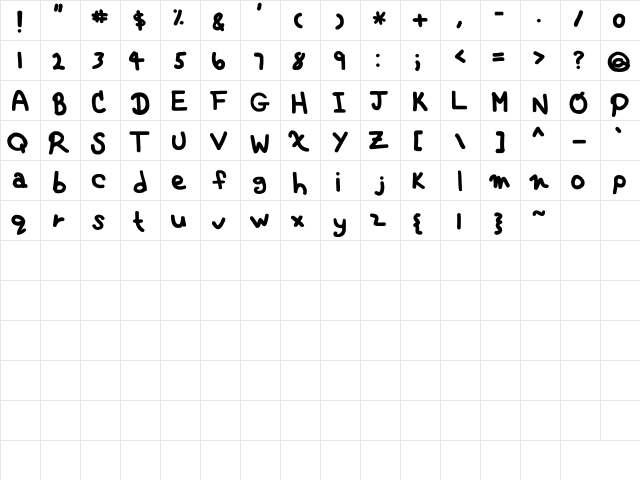
Weronikah Regular
Design Context for Weronikah Typeface
Weronikah offers clean, dependable letterforms without strong stylistic allegiance, making it a practical choice for designers who need flexibility.